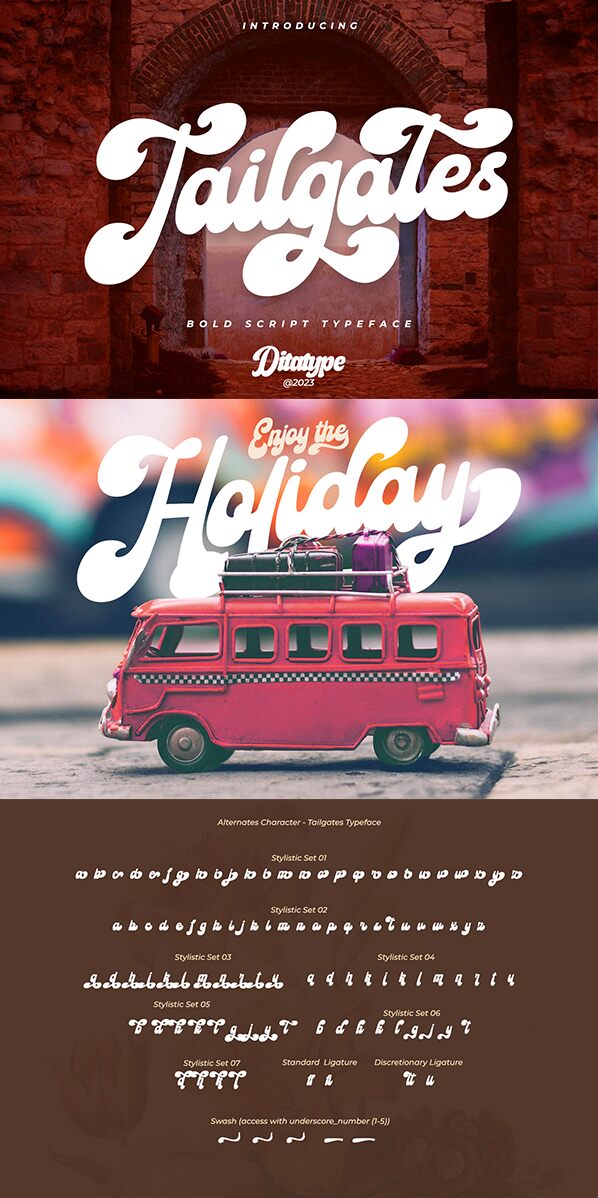
Tailgates font by Ditatype is a retro brush bold font with a rounded, smooth flow and a casual mood. The expressive flair and vintage appeal make it ideal for creating designs that look effortlessly modern yet classy. Each letter looks homely and audience-friendly allowing you to build words enthusiastically without overthinking.
Use this free display vintage brush font in posters, flyers, signage, magazines, web pages, social media posts, YouTube advertisements, packaging boxes, labels and more. The calming vibes allow it to do wonders in your business card design whenever applicable!